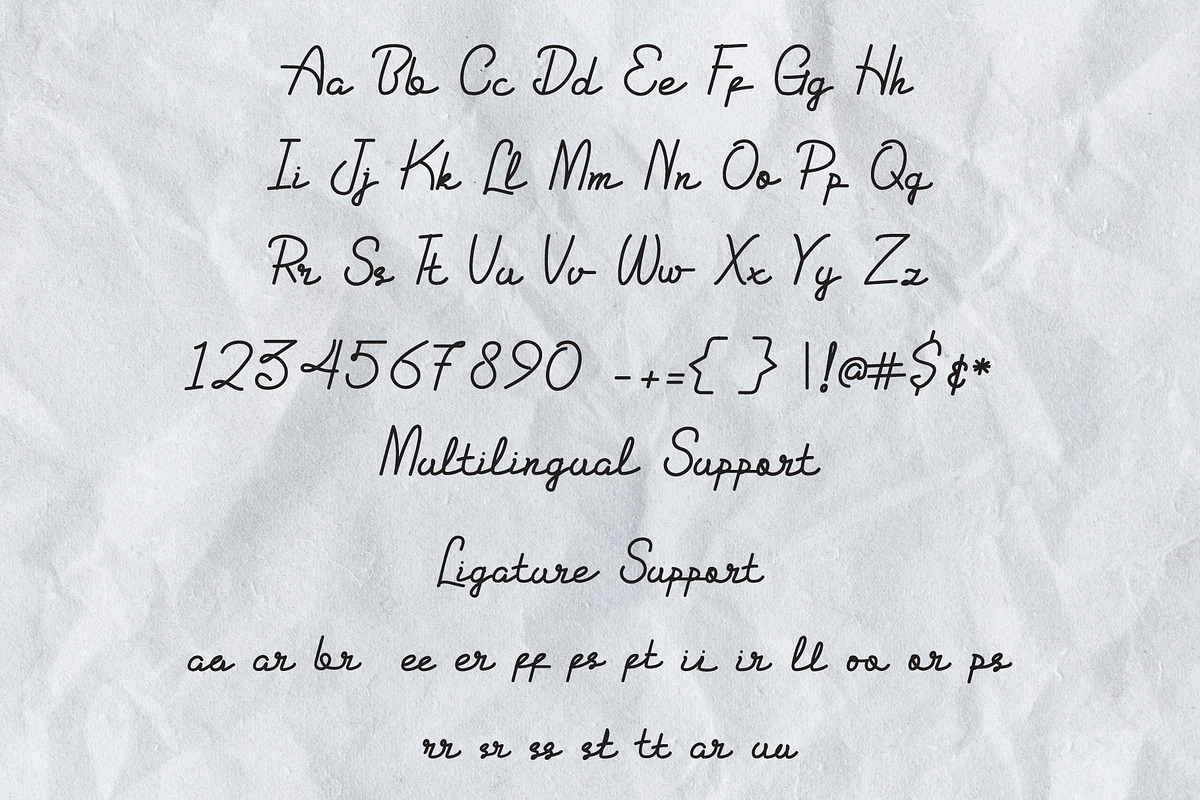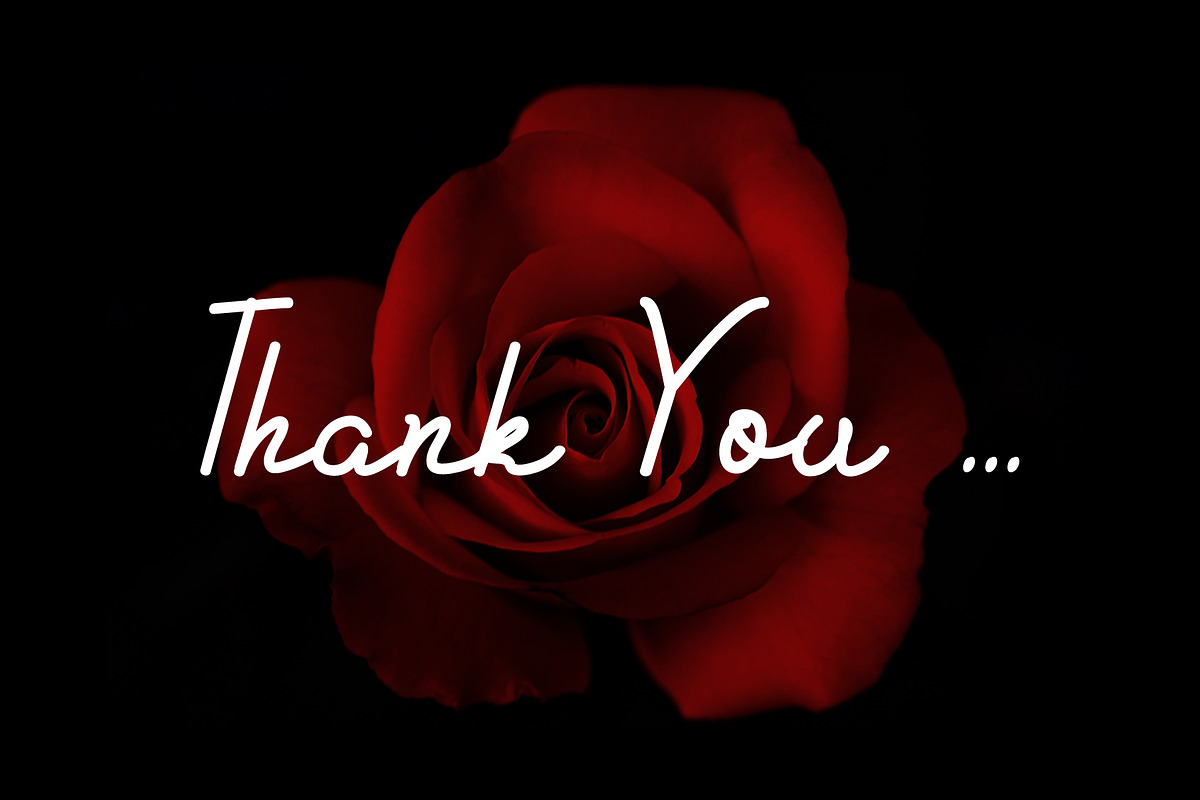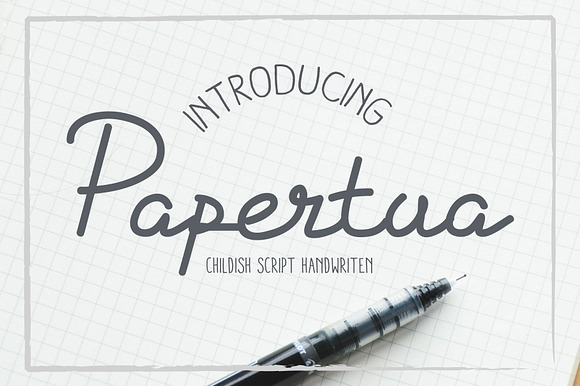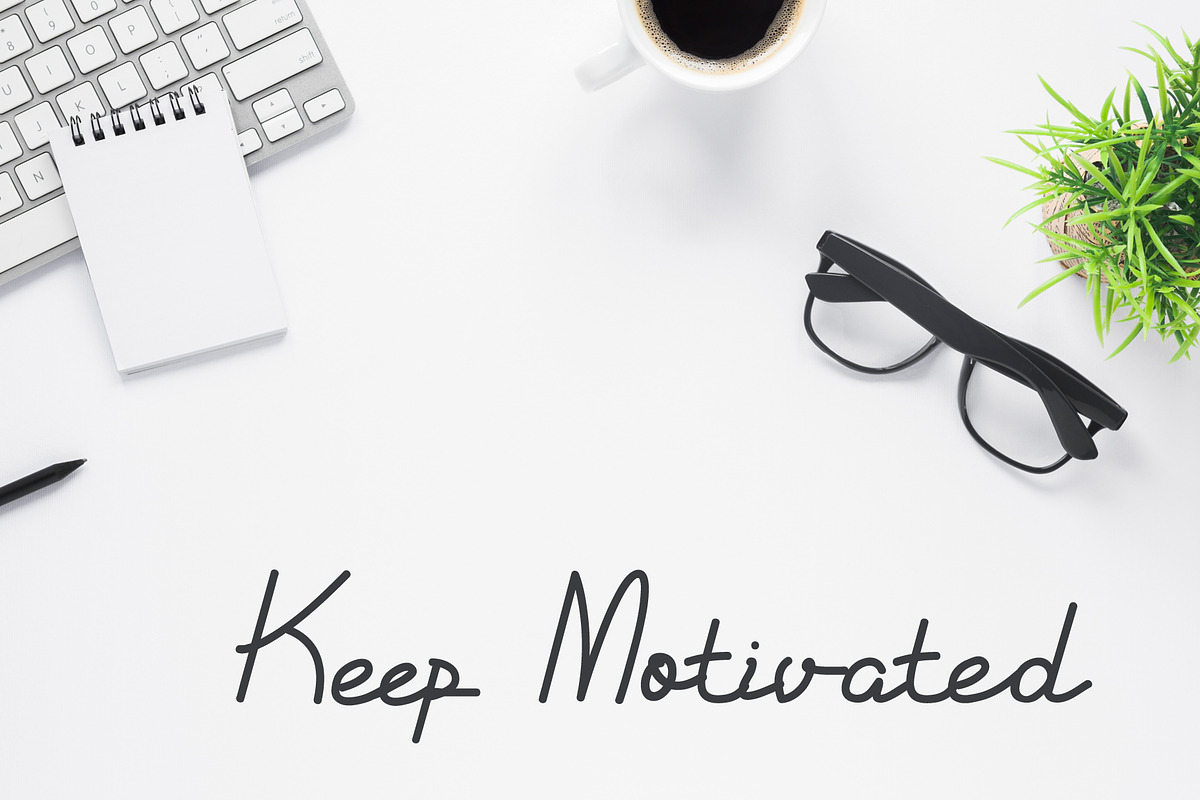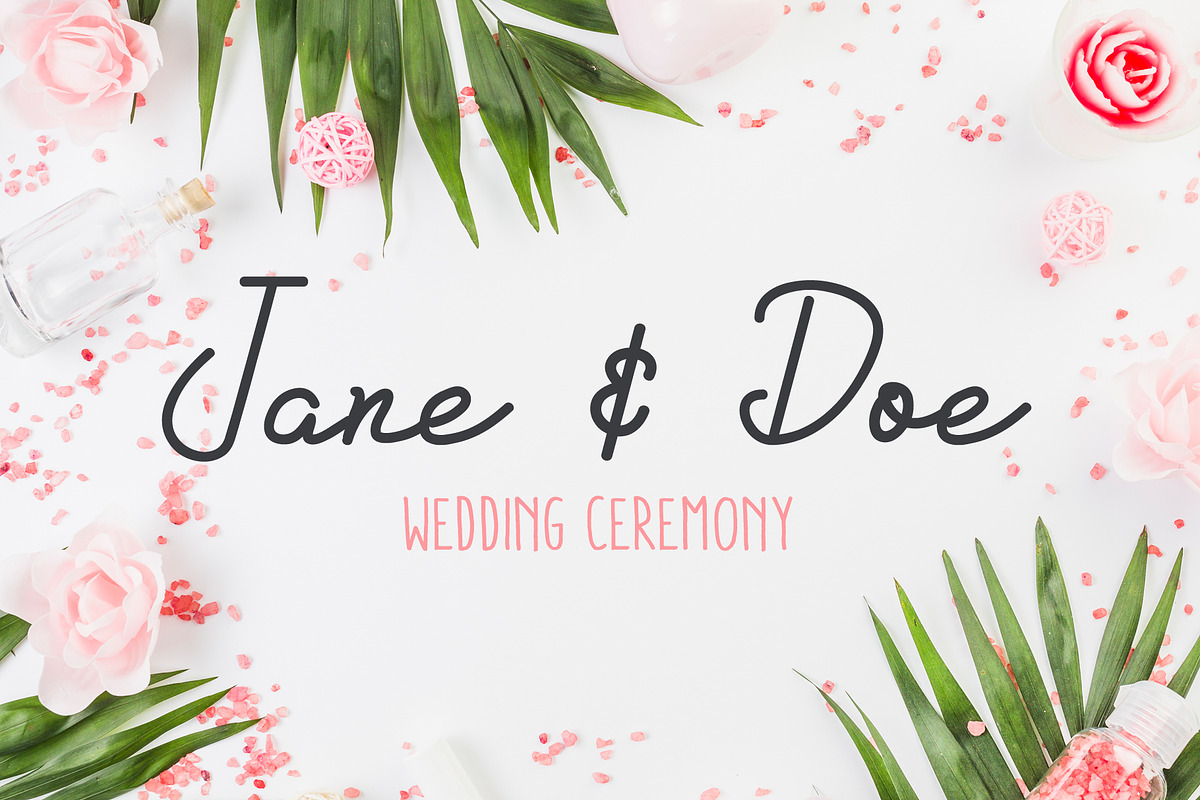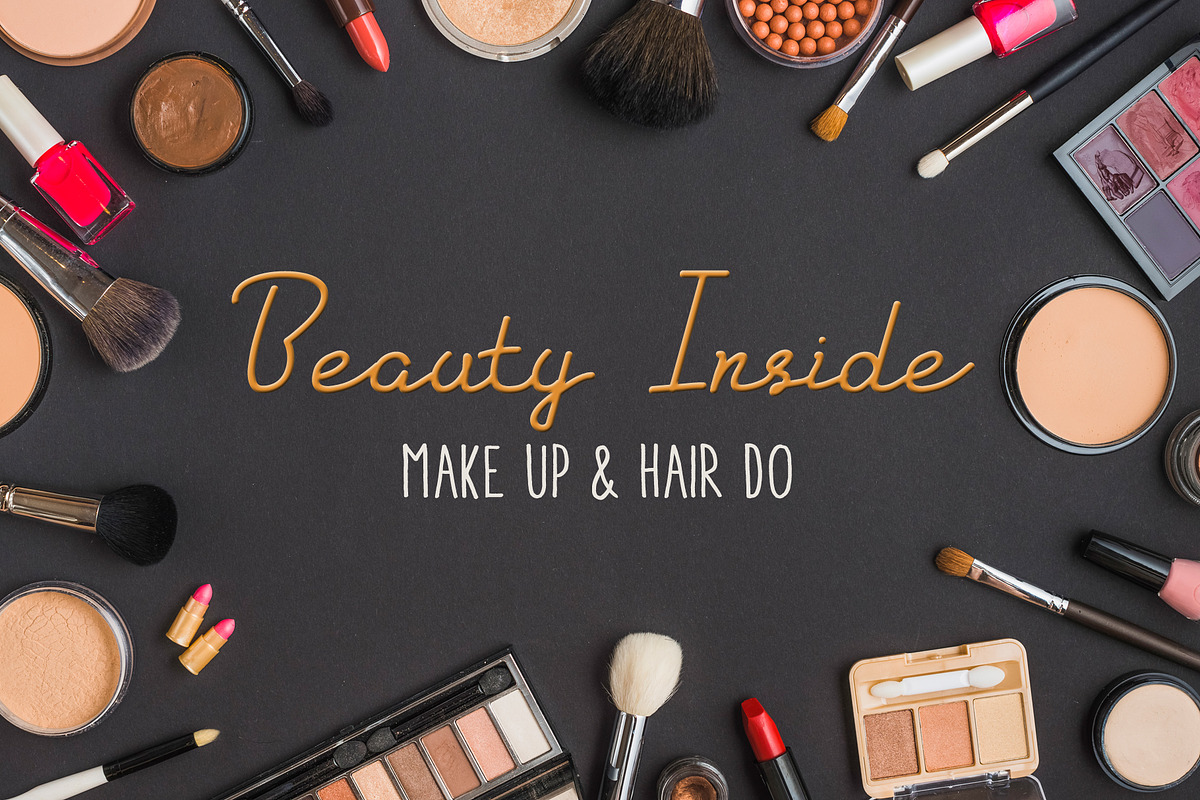
Papertua Monoline Script Font
DETAILS Meet my new font Papertua!
Papertua includes full set of lovely uppercase and lowercase letters, multilingual symbols, numerals and punctuation. This is so perfect for invitations, monograms etc